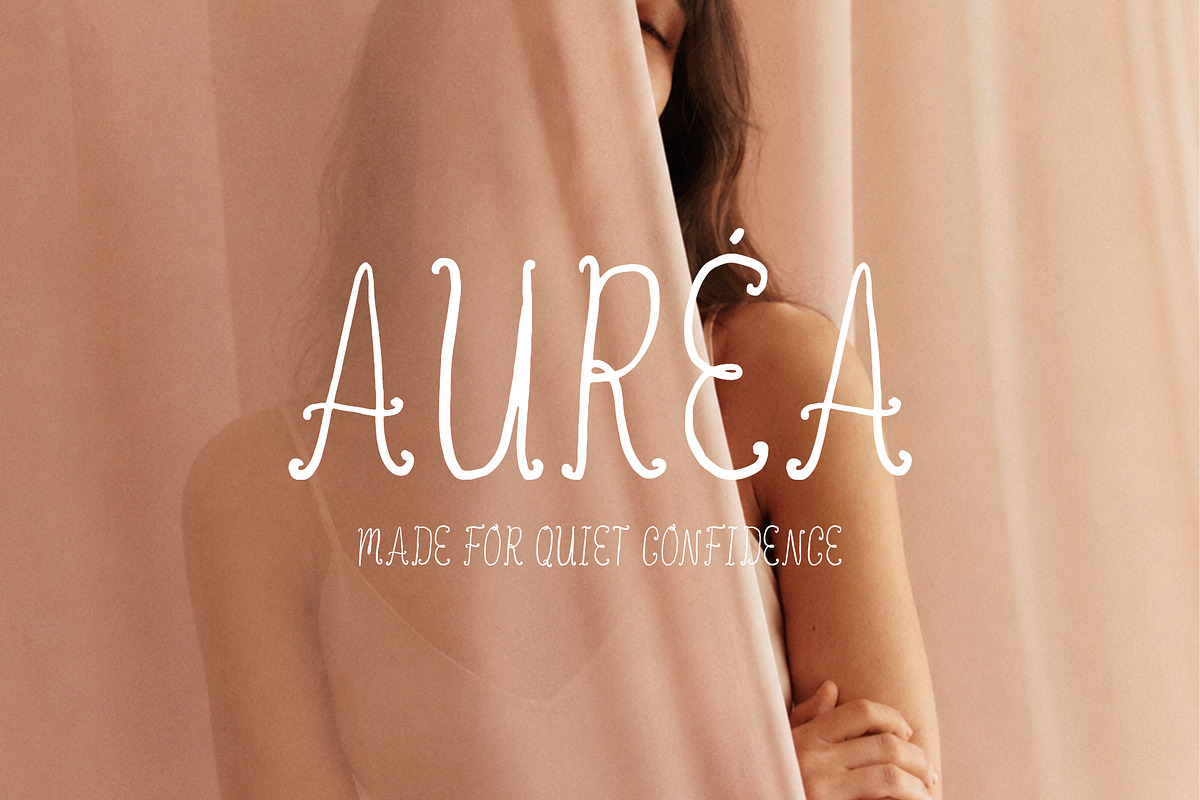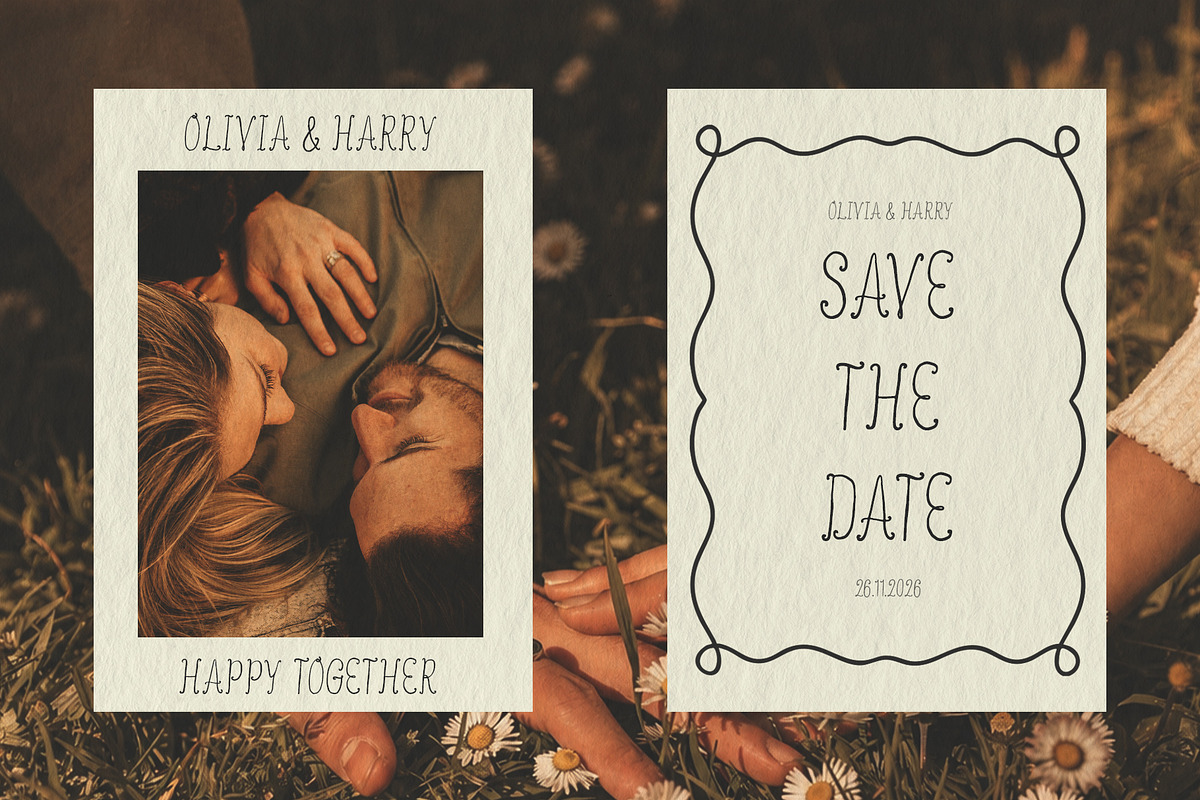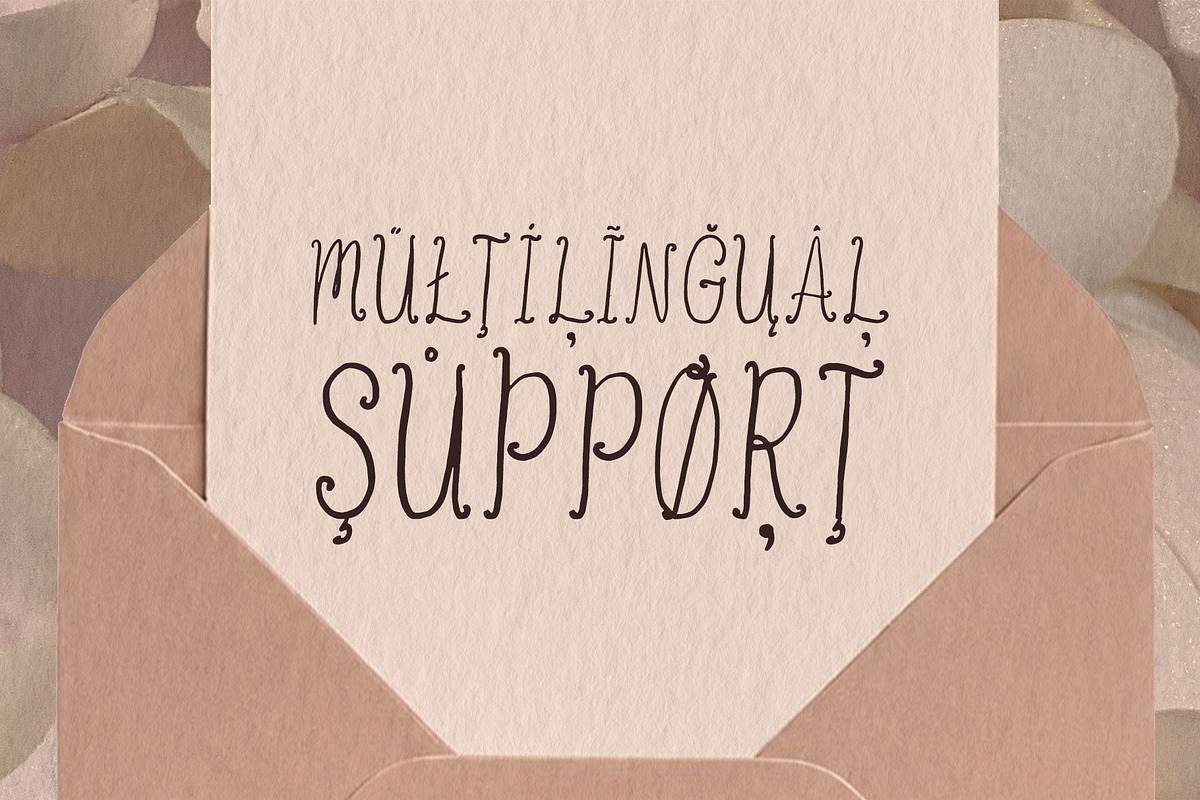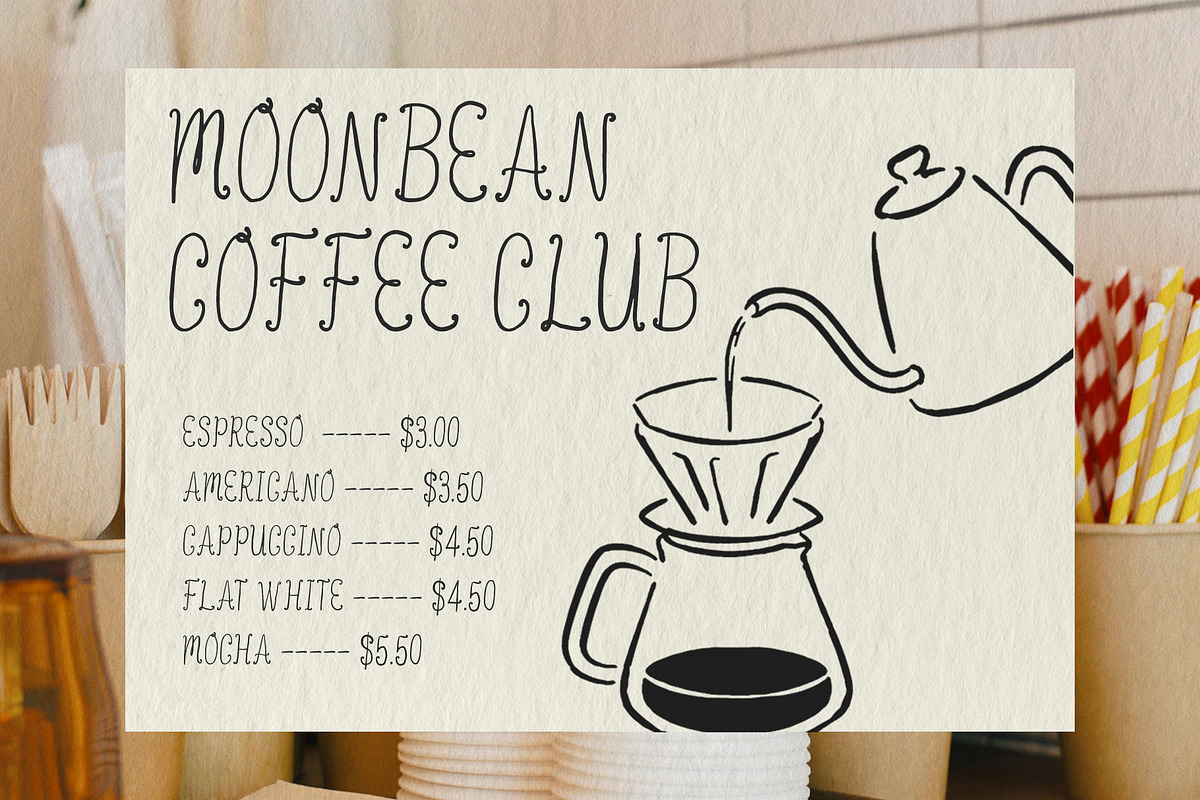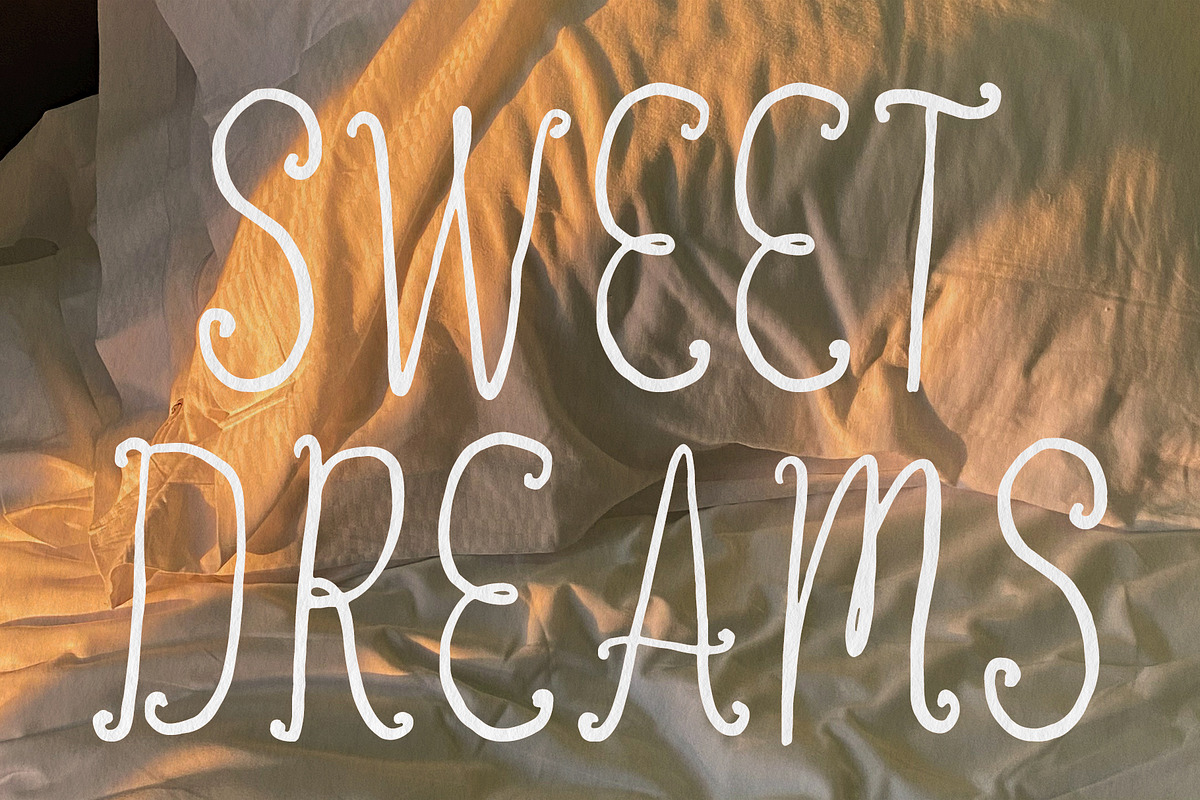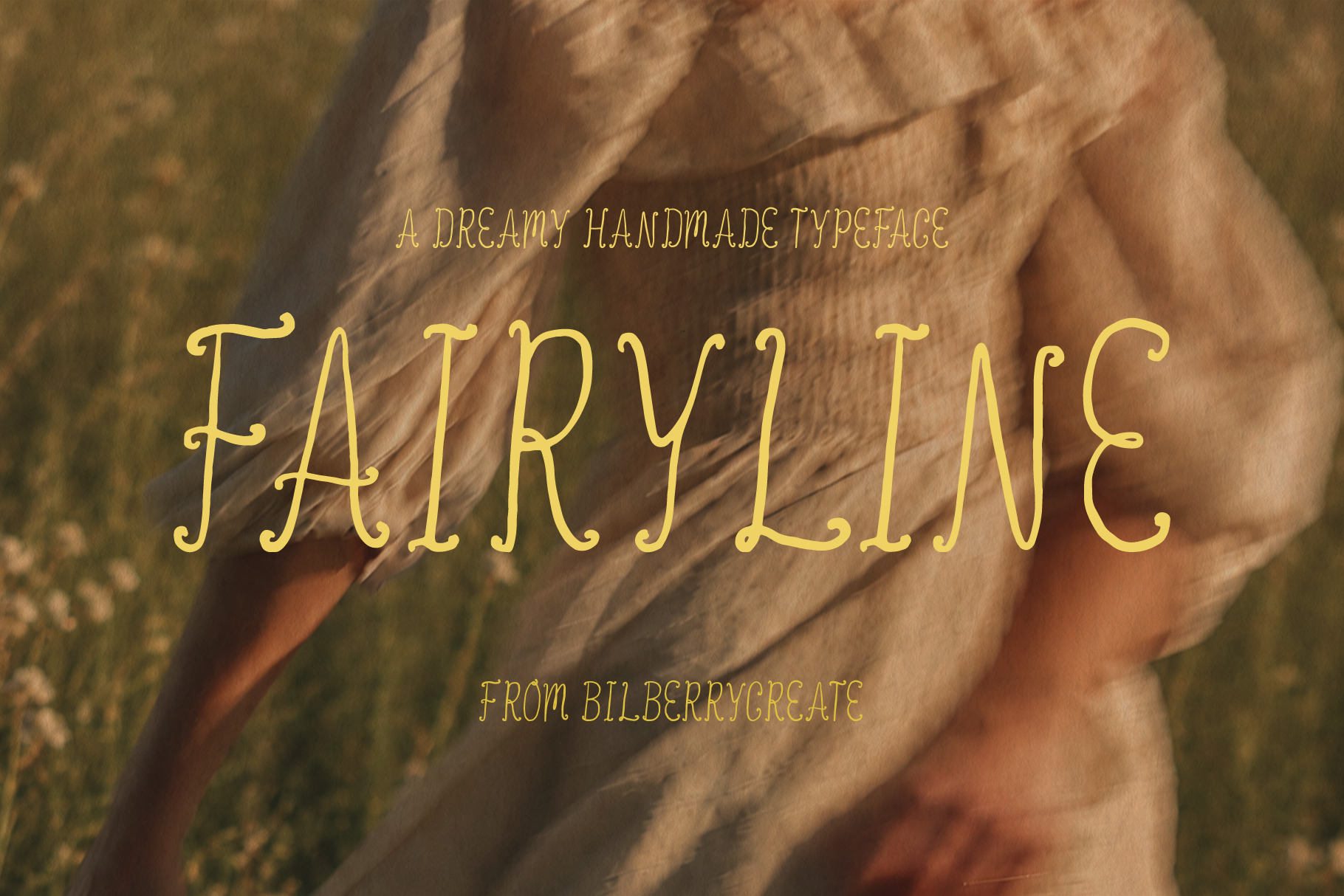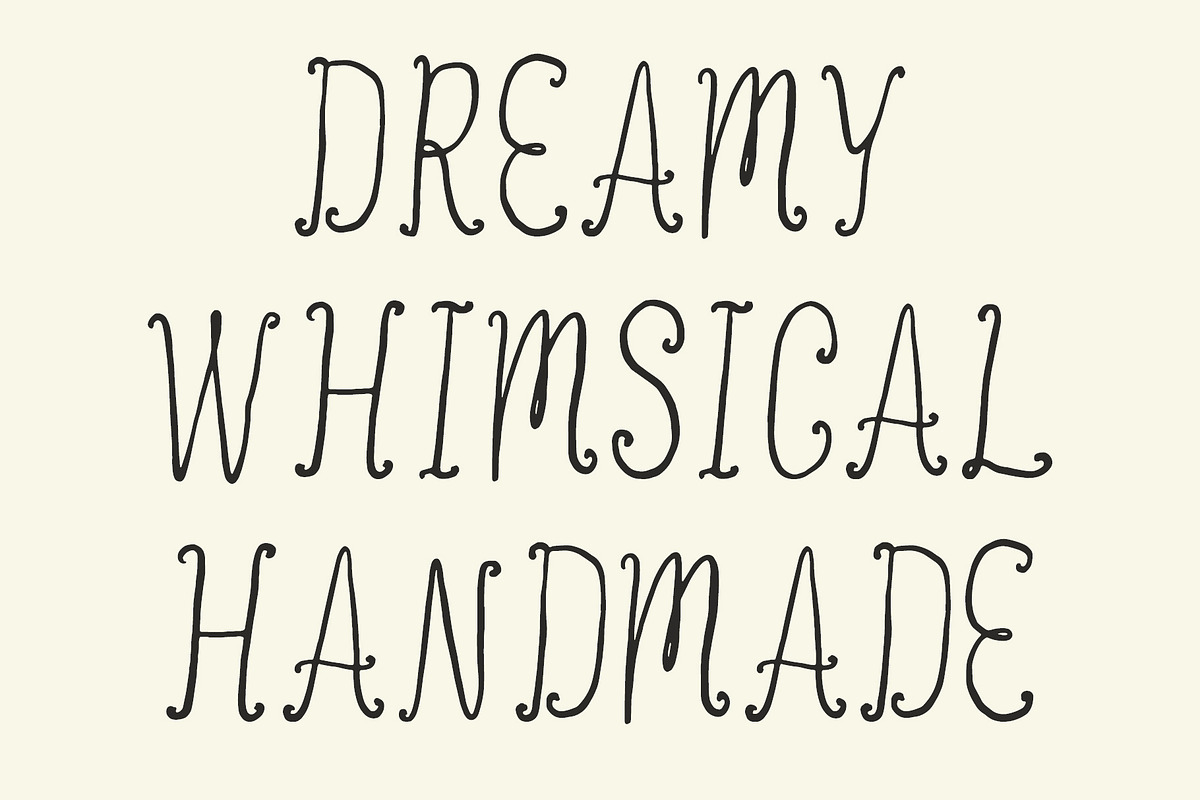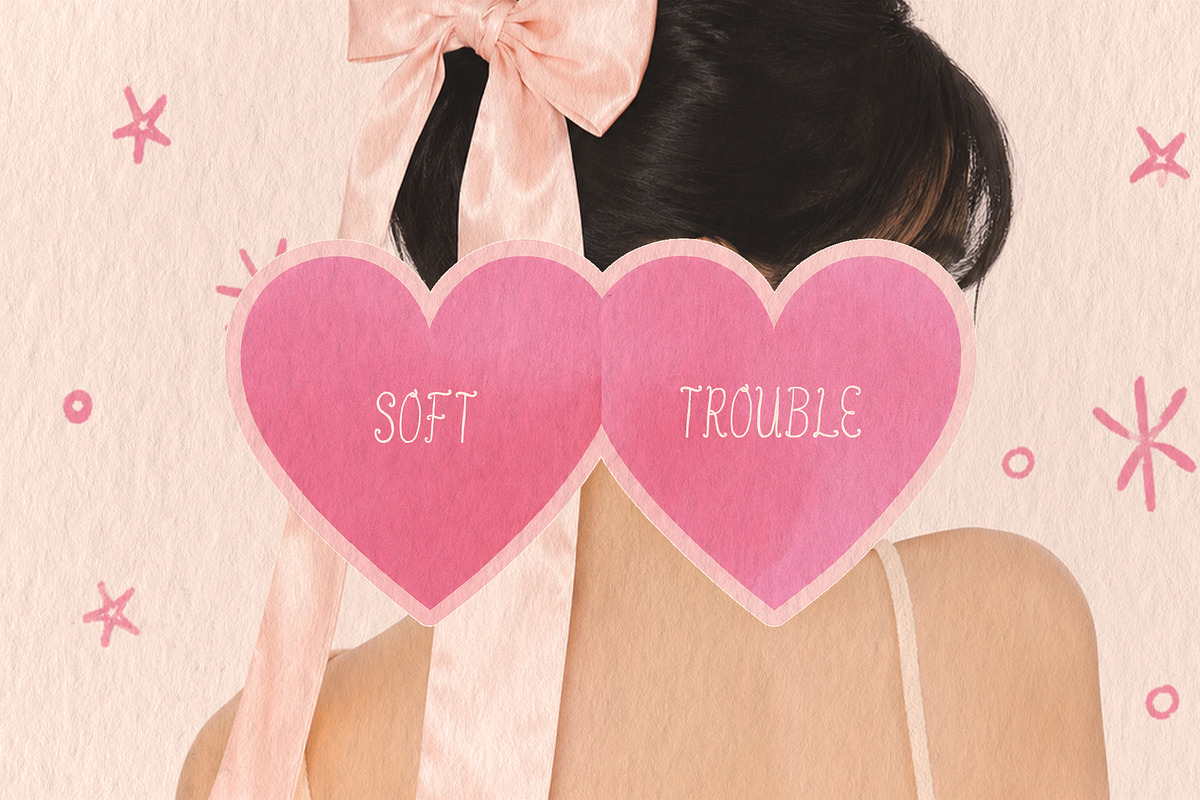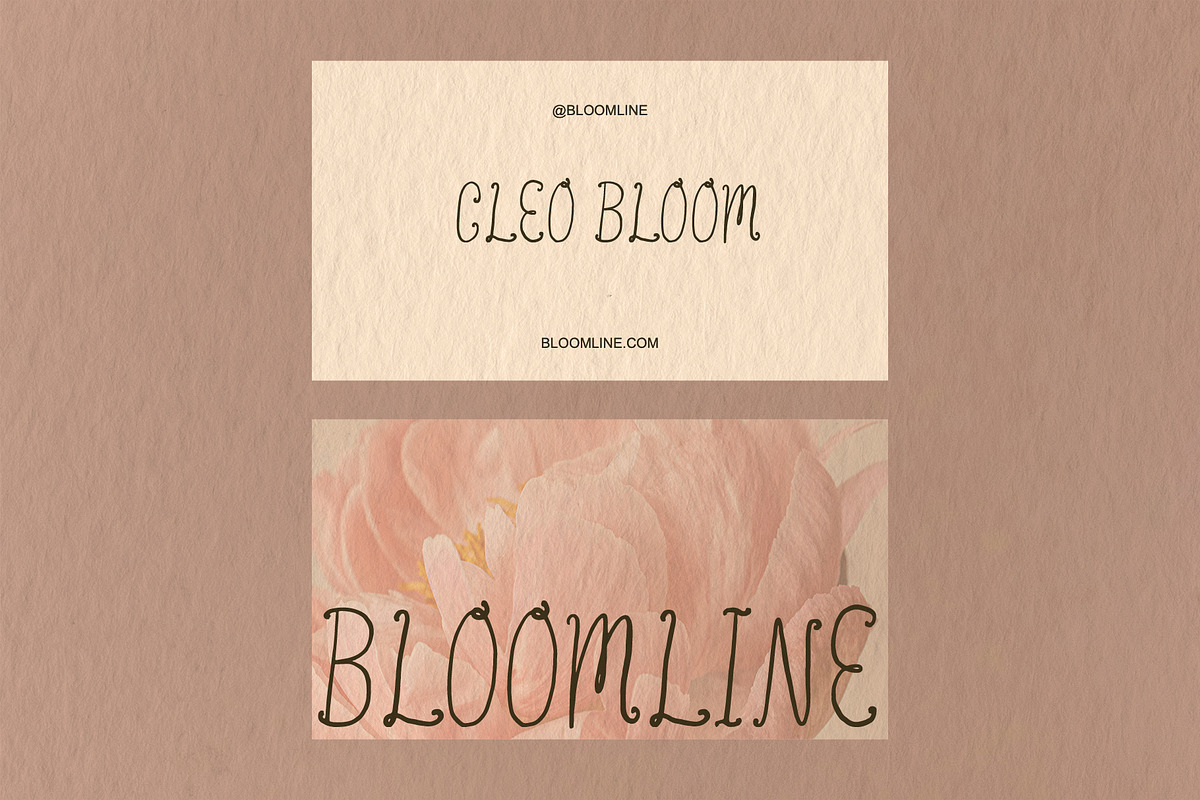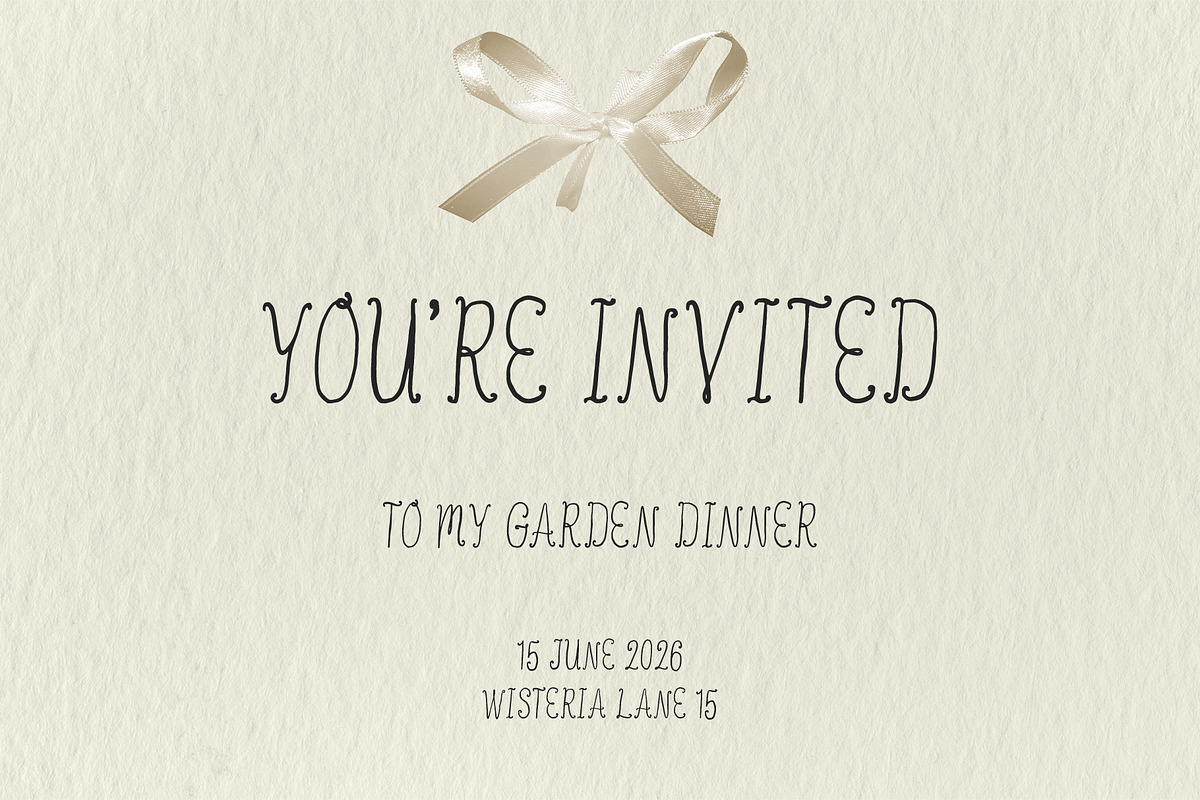
Fairyline - Dreamy Handmade Typeface
Meet Fairyline, a dreamy handmade typeface inspired by fairytales, soft sunlight, wildflowers, and nostalgic storybook lettering.
Fairyline also includes multilingual support, making it easy to use in a wide range of creative projects, from personal designs to international branding.
With its tall elegant shapes, playful curls, and handcrafted imperfections, Fairyline brings a warm, romantic, and slightly magical feeling to your designs. It works beautifully for feminine branding, wedding stationery, packaging, posters, book covers, greeting cards, Instagram graphics, logos, and dreamy lifestyle projects.
Fairyline is perfect when you want your design to feel personal, delicate, whimsical, and full of charm — like something written in a forgotten fairytale book.
Use it for:
logos and branding
wedding invitations
packaging design
posters and prints
social media templates
quotes and cards
book covers
boutique and handmade brands